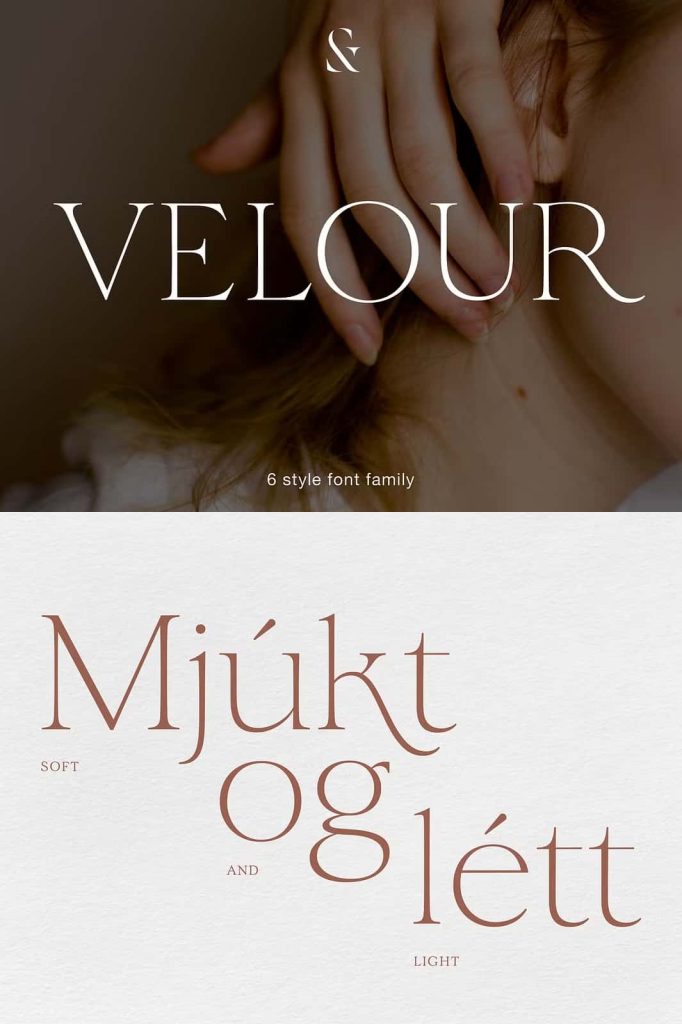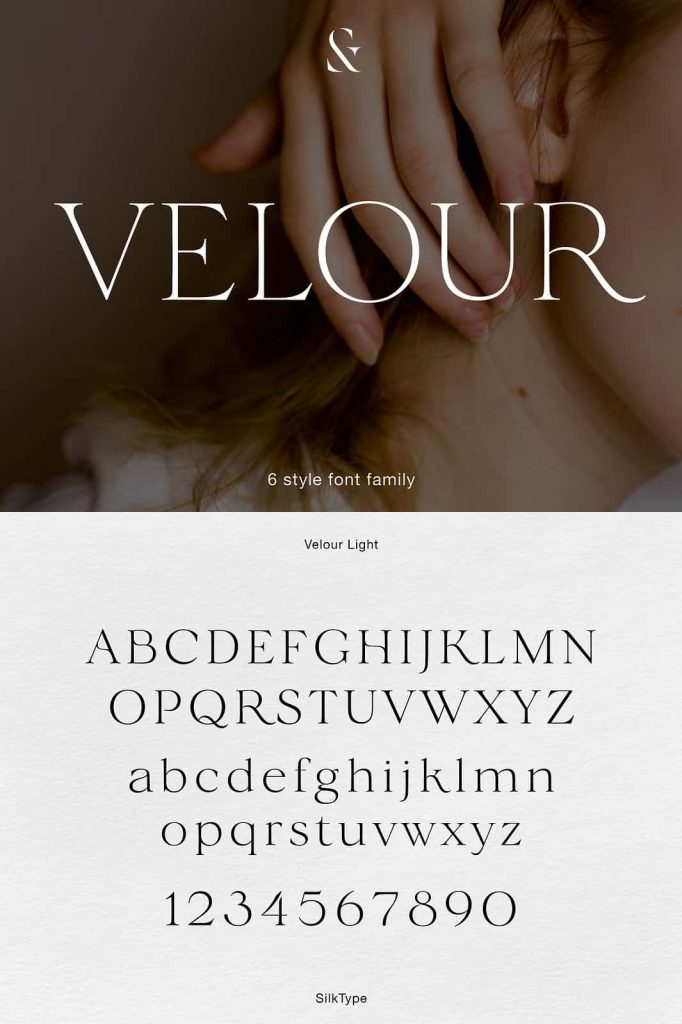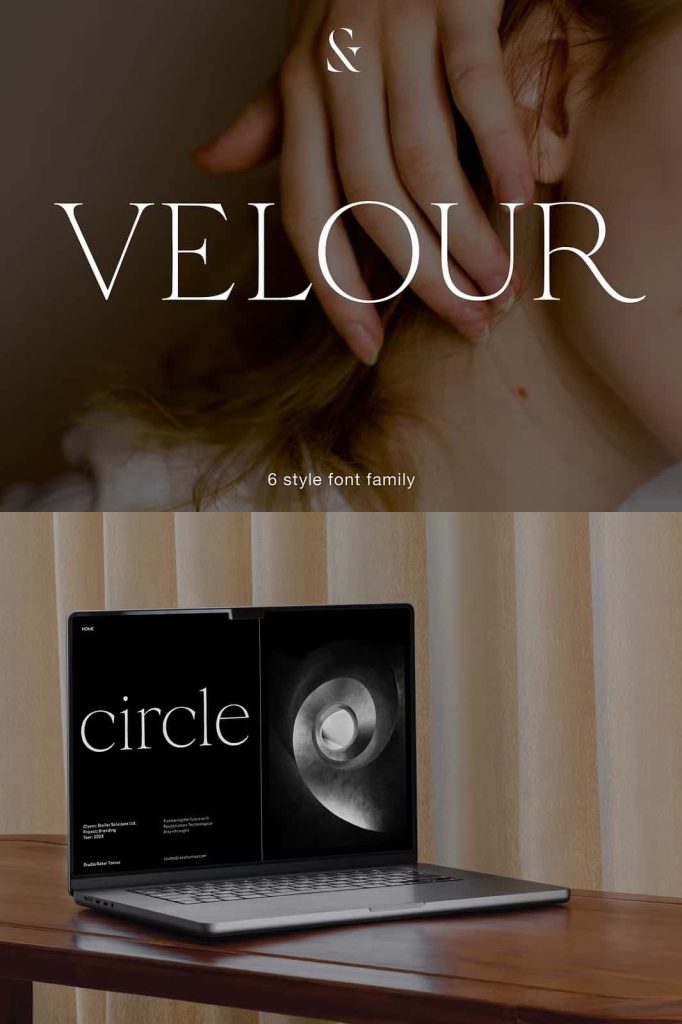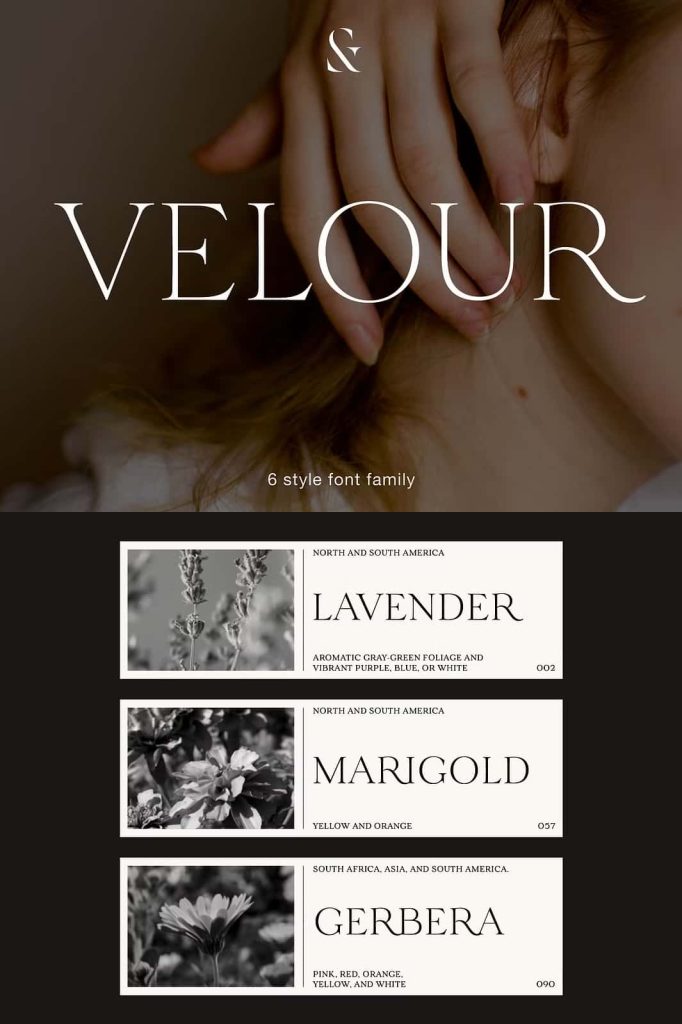
Velour – 6 font familyleastedFebruary 24, 2025Fonts Velour is an elegant display typeface, with thin, bracketed serifs. The typeface’s main features are the curved crossbar Download